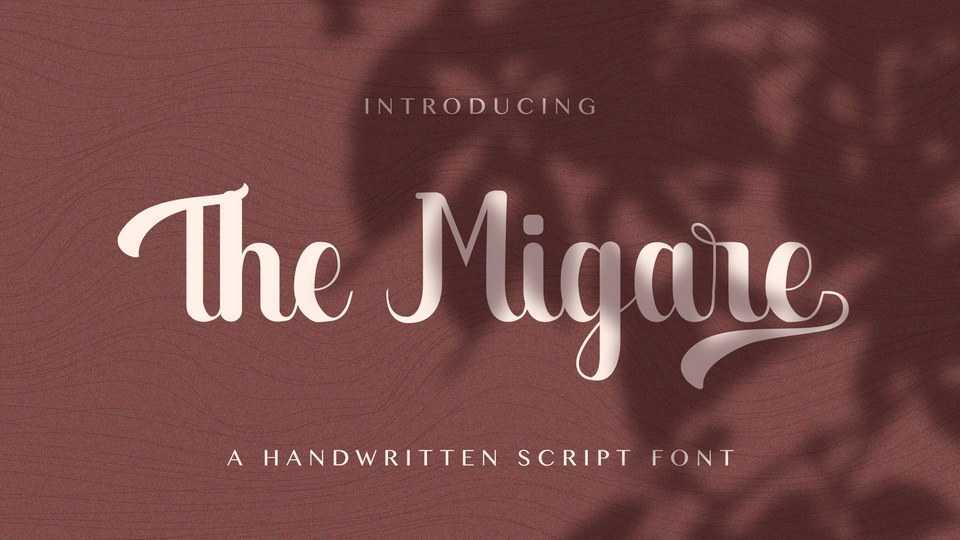
Download The Migare font, a delicate, elegant and flowing handwritten typeface. The Migare has beautiful and well balanced characters and as a result, it matches a wide range of designs.